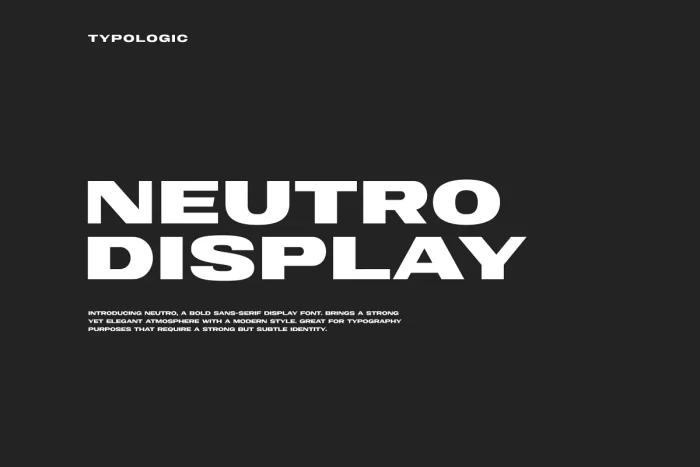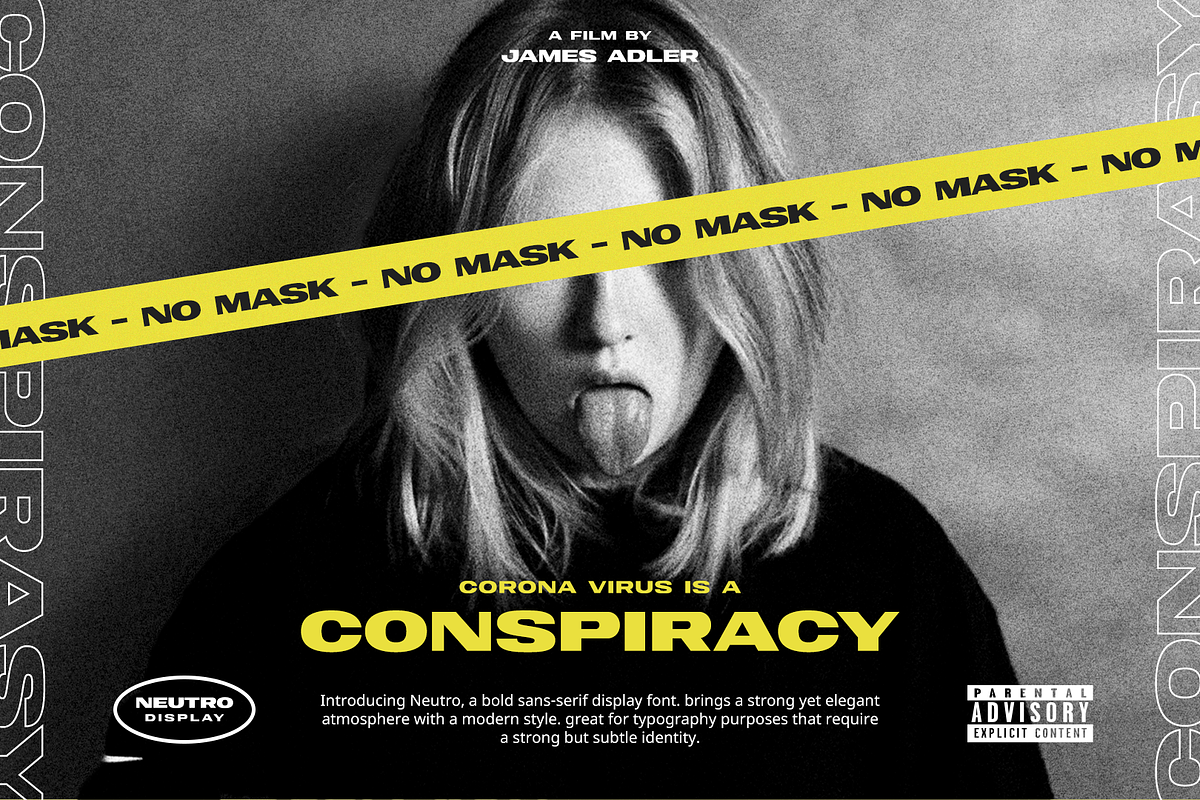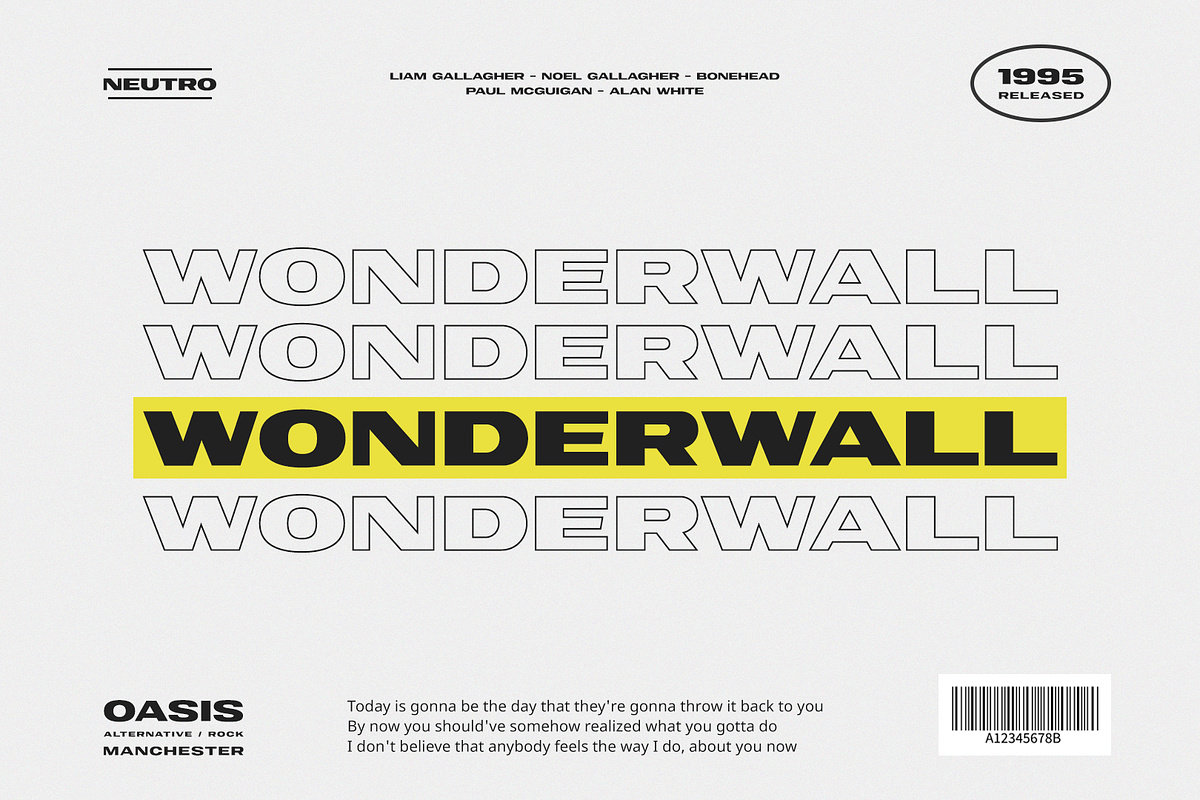
Neutro is a bold sans-serif display font that brings a strong yet elegant atmosphere with a modern style. It is great for typography purposes that require a strong but subtle identity. The font divided into three weights: (regular, bold, extrabold) and one outline version.